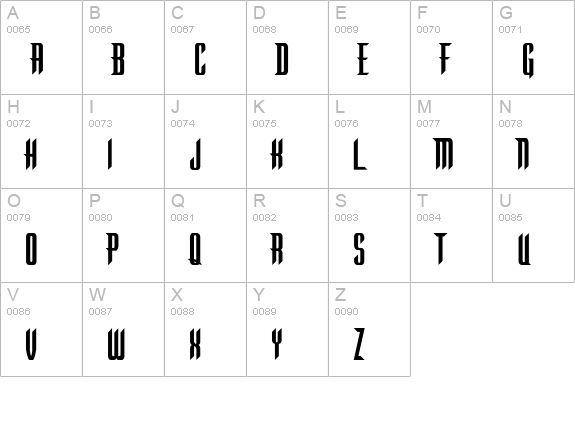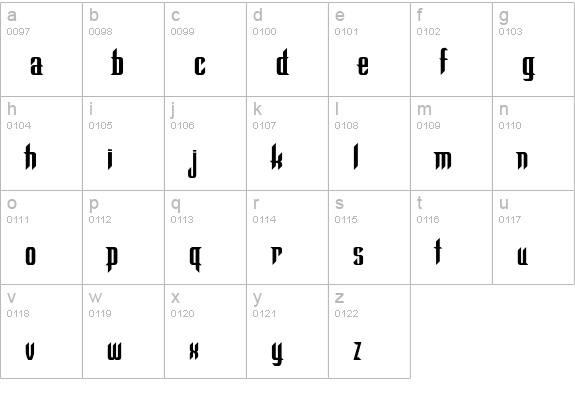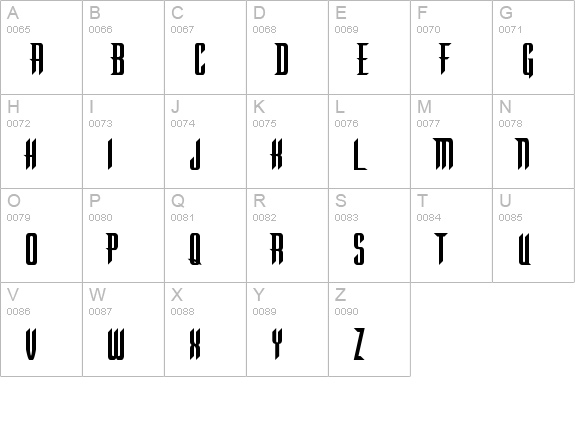
Warlock Font Details
Introducing the captivating and enigmatic Warlock font, a typeface that will transport you to a realm of mysticism and dark elegance. With its intricate and spellbinding letterforms, Warlock font is the perfect choice for those seeking to add an air of mystery and enchantment to their designs. Designed with meticulous attention to detail, this font showcases the power and allure of the arcane arts. Each letter is carefully crafted, embodying the essence of ancient spells and secret incantations. The sharp edges and intricate curves of Warlock font create a visually stunning display that is both captivating and haunting. One of the most alluring aspects of Warlock font is that it is freely available for download at FontsMarket.com. This means that designers, artists, and enthusiasts alike can easily access this bewitching typeface and incorporate it into their projects without any cost. Whether you are conjuring up a gothic-inspired logo, designing an eerie book cover, or crafting a mystical invitation, Warlock font is the perfect companion to bring your visions to life. With its versatility, Warlock font can be used for a wide range of applications. From digital designs to printed materials, this font will elevate your projects to a whole new level of enchantment. Its compatibility with various design software ensures that you can seamlessly integrate it into your workflow, making it a valuable asset for both professionals and hobbyists. Unlock the power of Warlock font and let your creativity soar to new heights. Delve into the mystical depths of this typeface and watch as your designs come alive with an otherworldly allure. Download Warlock font for free at FontsMarket.com and embark on a journey that will captivate and mesmerize all who lay eyes upon your creations. Embrace the magic of Warlock font and let it guide you on a path of creativity and inspiration.